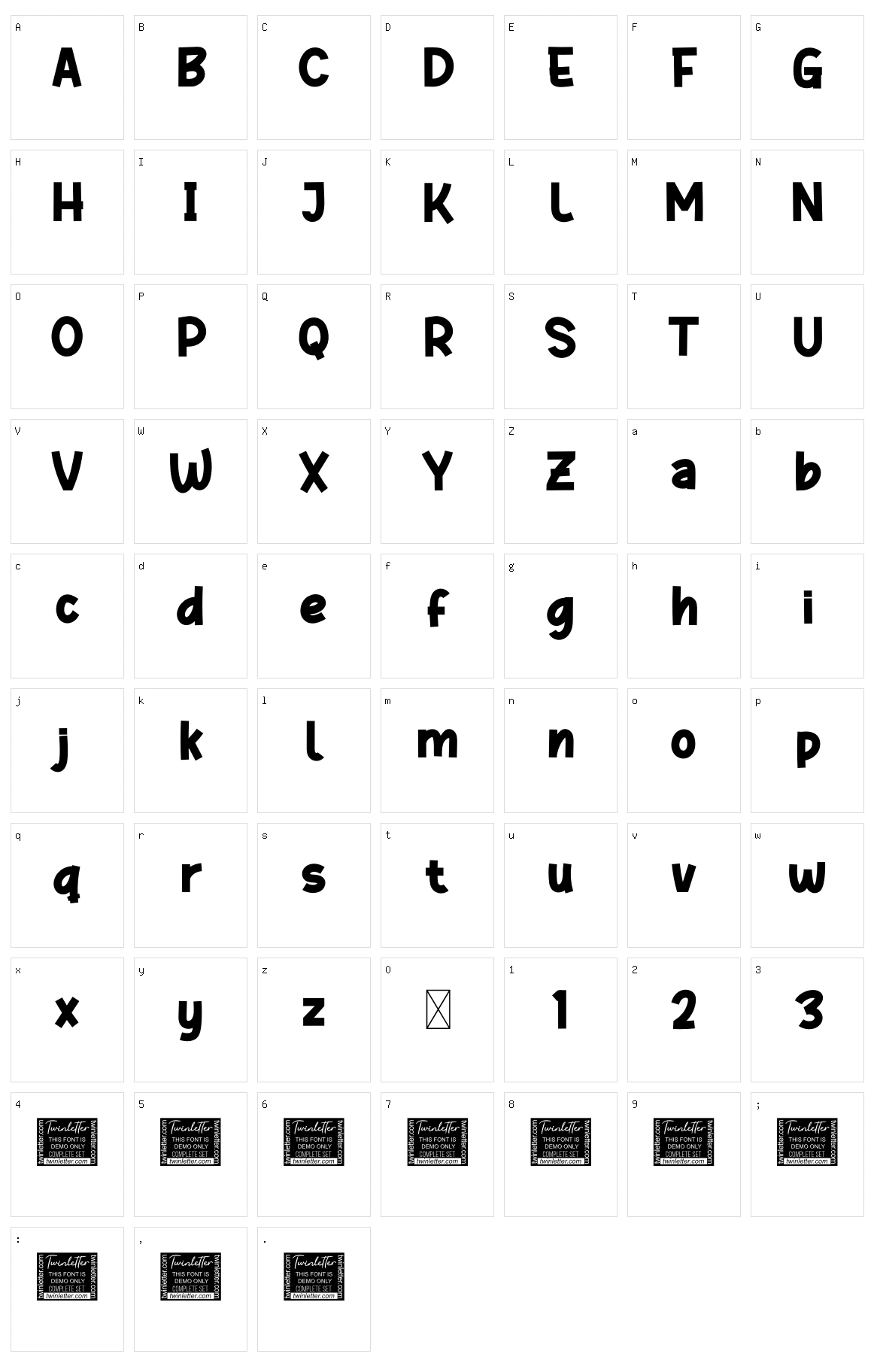
The free font Gaffuk is carefully designed by twinletter, showcasing a thoughtful balance of creativity and usability and falls under the Cartoon font style. When you download the ZIP file, it contains only 42.82 KB of font files, making it lightweight and quick to download. Please review the license details below to understand permitted usage and distribution rights. If license information is not available, we recommend using this font for personal projects only or contacting the author directly for commercial usage permissions.